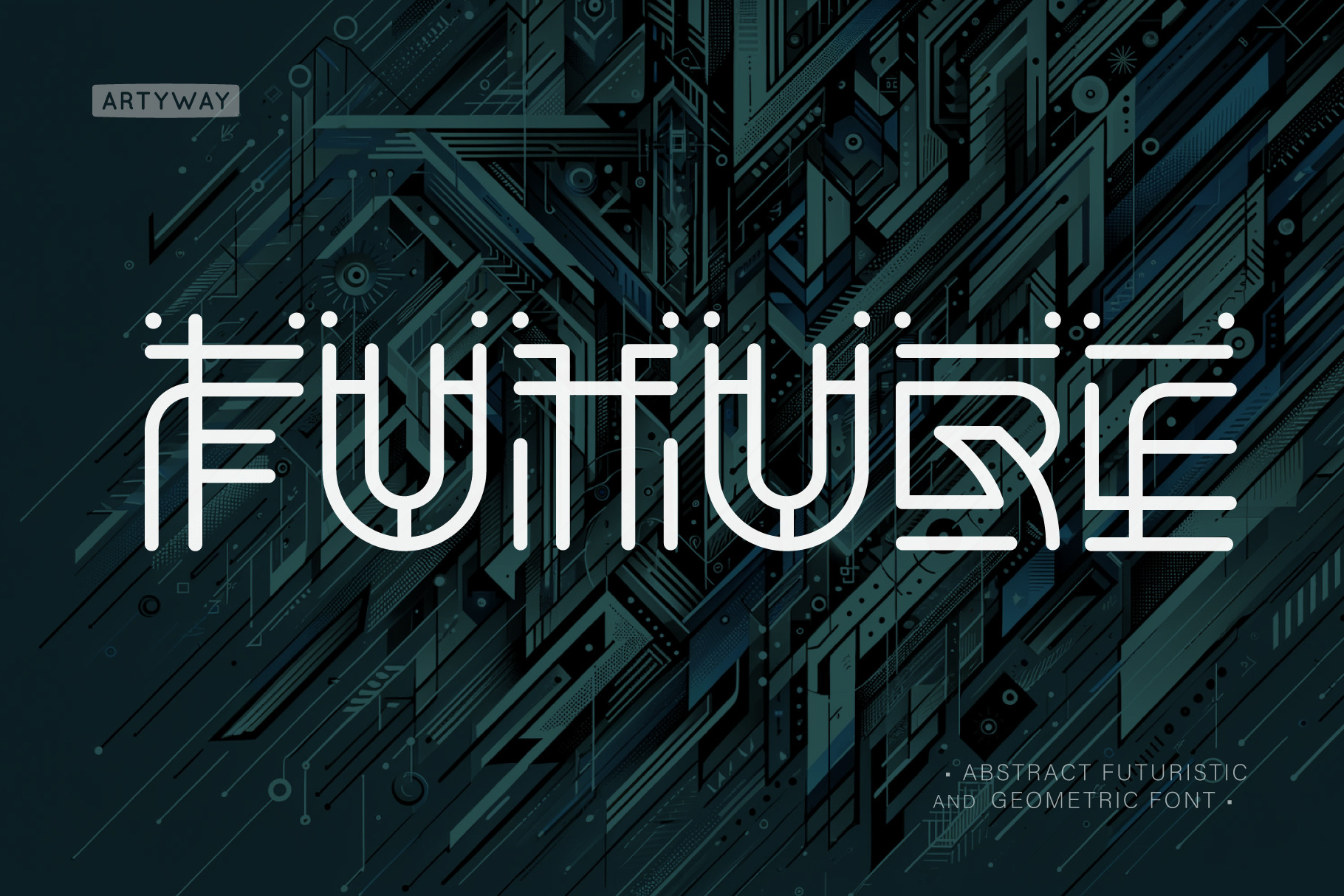
Future Abstract Font
The Future Font – A Bold Leap into Tomorrow’s Design
Step into the future of creativity with the Future Font, a cutting-edge typeface designed for visionaries and trendsetters. Its sleek, geometric design and modern aesthetic make it ideal for projects that push the boundaries of innovation.
- Tech startups and digital branding
- Gaming interfaces and futuristic concepts
- Electronic music and virtual reality themes
- Posters, logos, and modern editorial layouts
- Digital content creation with a tech-savvy twist
- Uppercase letters with futuristic details
- Unique geometric designs for each character
- Ideal for creative, innovative, and futuristic projects
Elevate your designs with the Future Font, where innovation meets bold aesthetics. Perfect for those who aim to captivate with modernity and style.